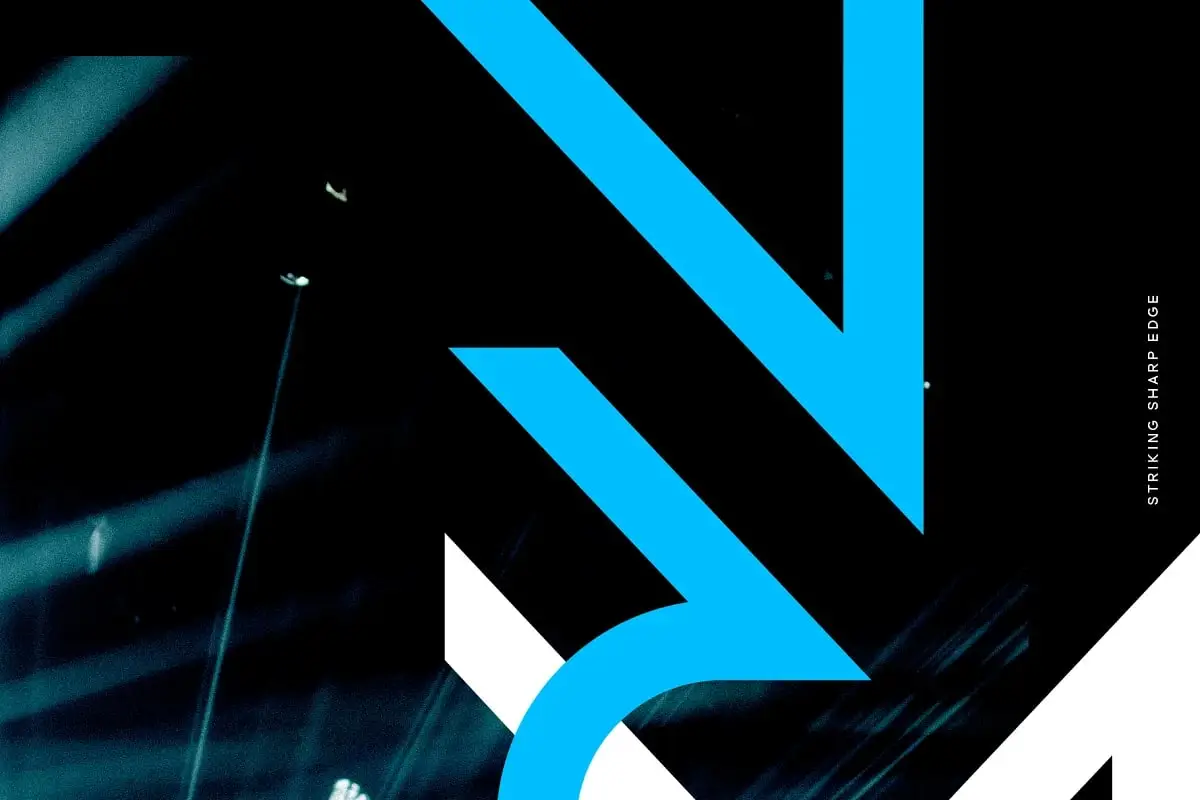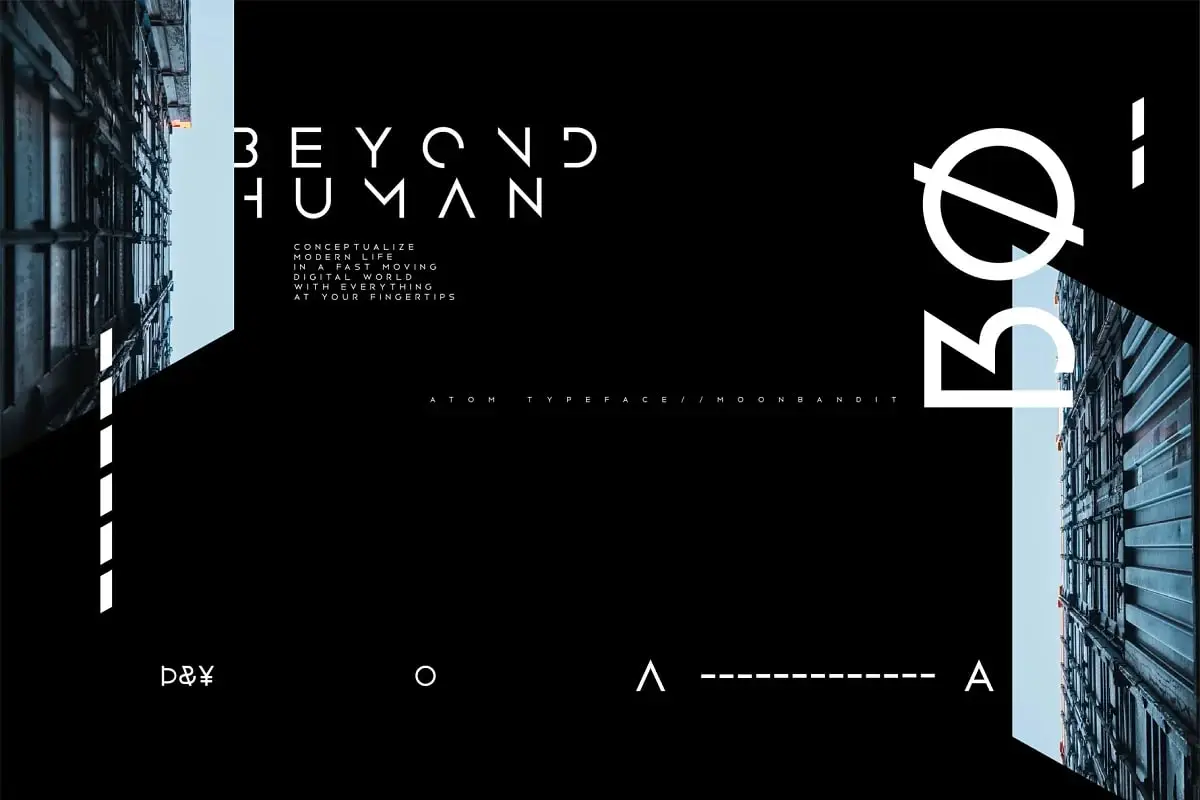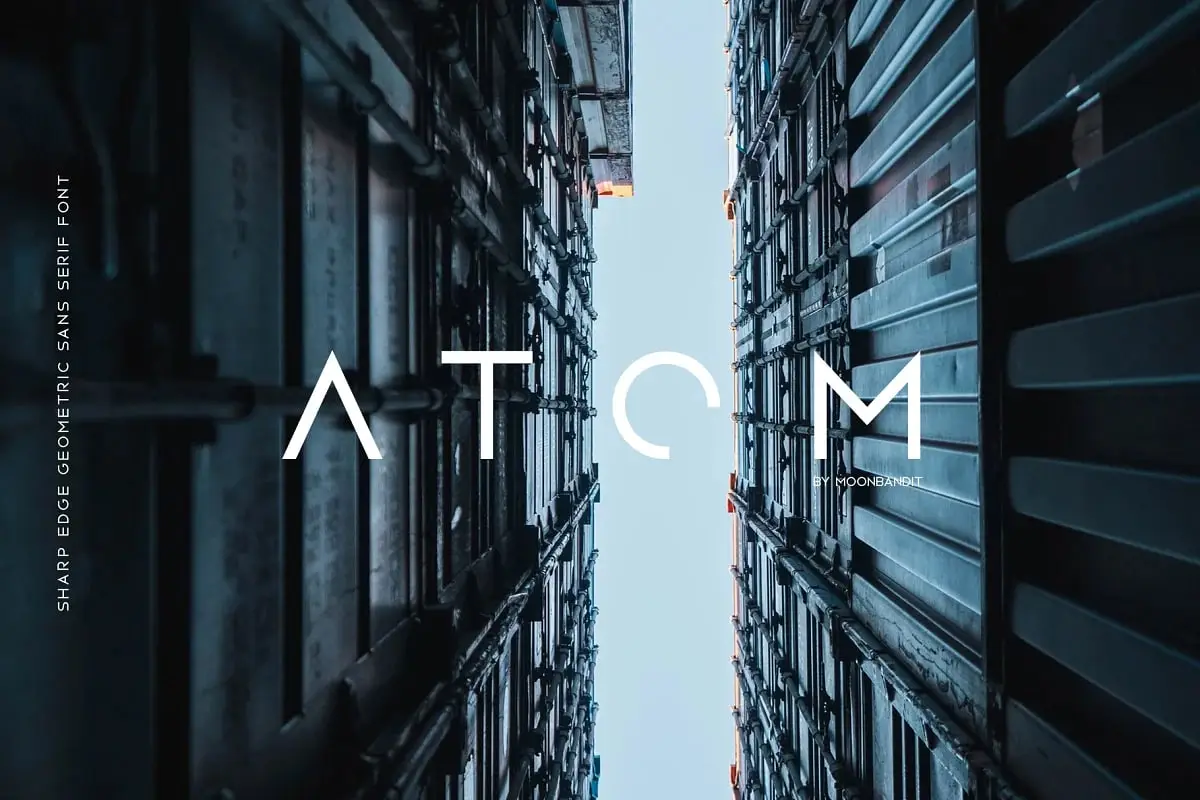
Atom-Sharp Edge Future Scifi Font
The Atom-Sharp Edge Future Scifi Font is a striking typeface designed for those who want to make a bold statement in their creative projects. With its futuristic aesthetic, this font is perfect for a variety of applications including branding, logos, web design, print media, and user interfaces.
• Unique sci-fi inspired design
• Multiple weights for versatile usage
• Clean lines and sharp edges
• Easy to read at various sizes
• Ideal for sci-fi themed projects and futuristic branding
• Use in headlines and titles for maximum impact
• Combine with complementary sans-serif fonts for a balanced look